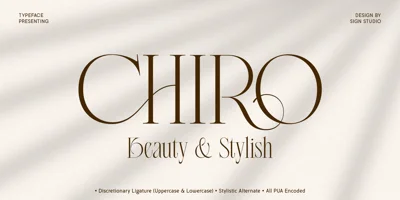
Chiro Font
Looking for a clean and elegant typeface that blends modernity with simplicity? Chiro Font is perfect for branding, editorial design, websites, and product packaging that require a sophisticated yet approachable look. Its sleek lines and balanced proportions provide excellent readability and timeless appeal.
Whether you’re designing corporate materials, lifestyle blogs, or minimalist posters, Chiro Font adds a touch of class and clarity to your typography.